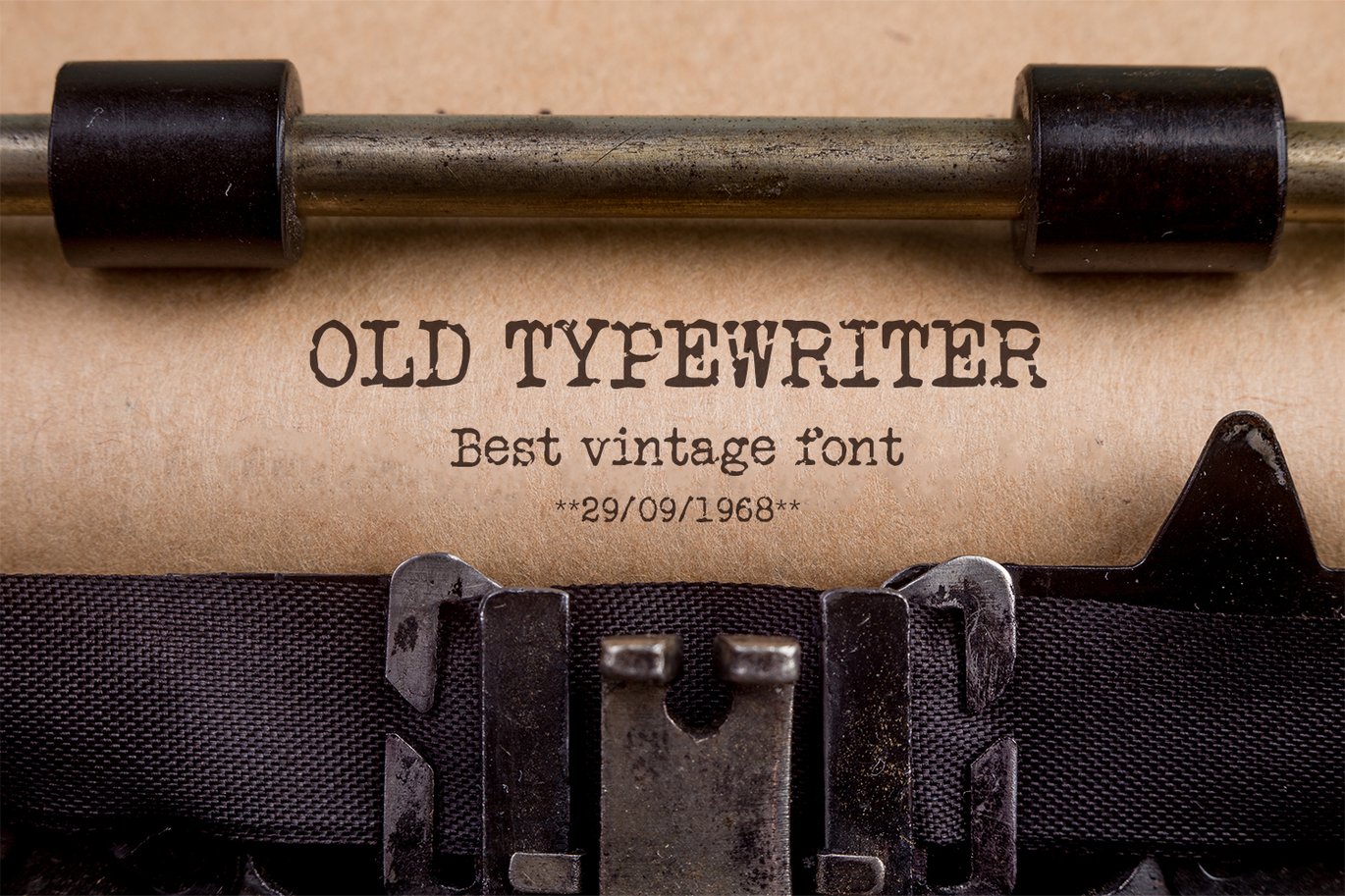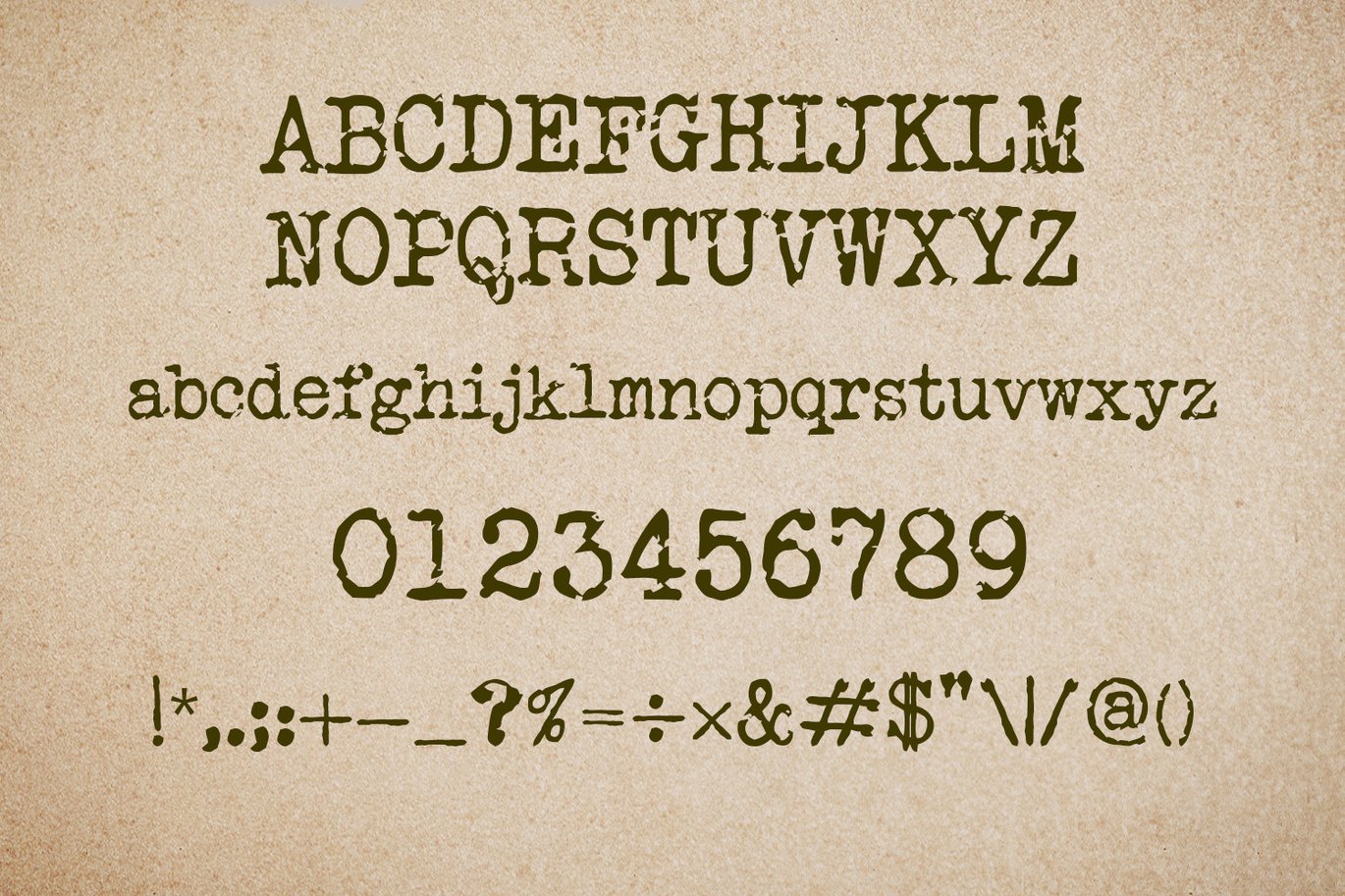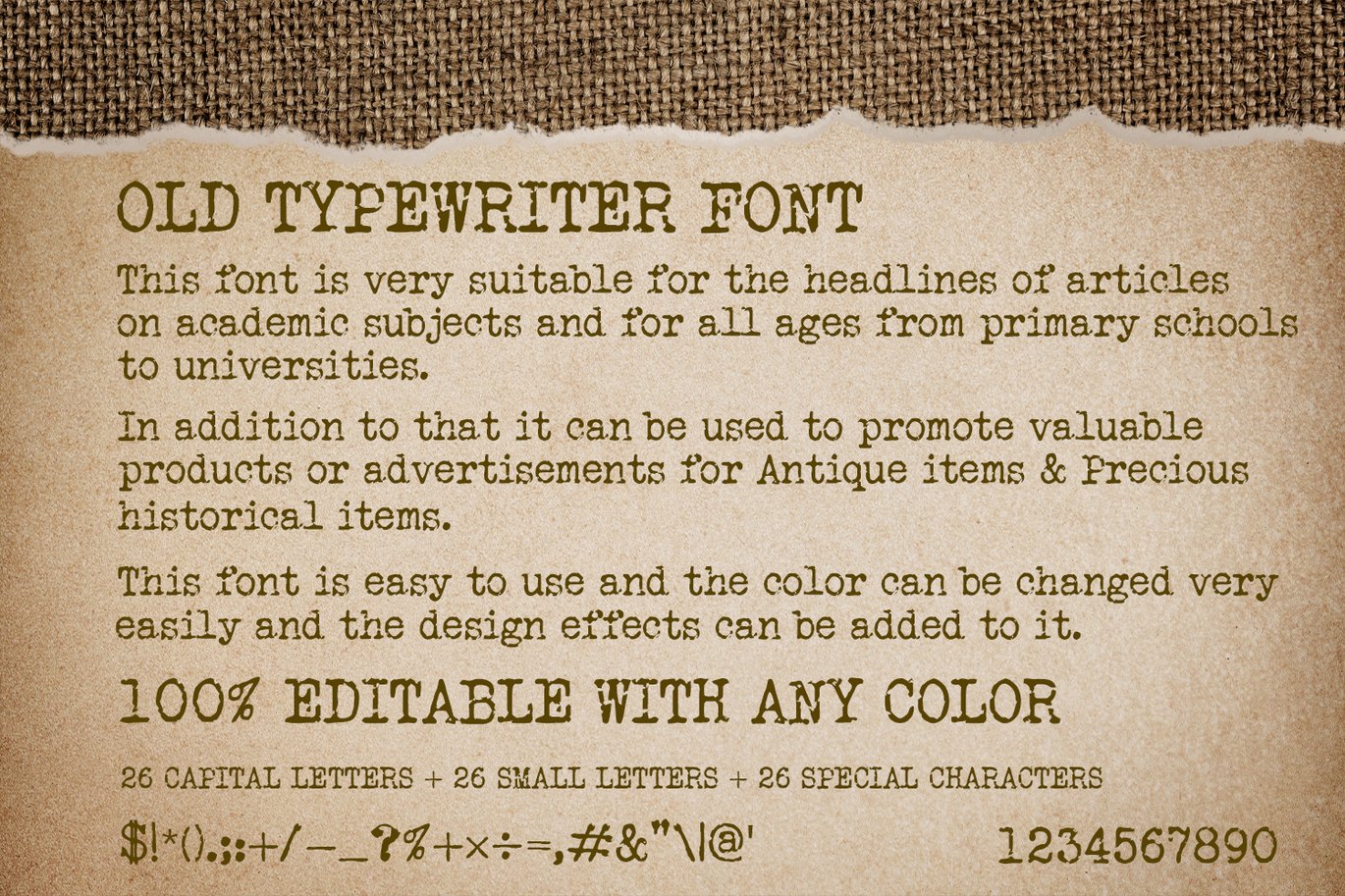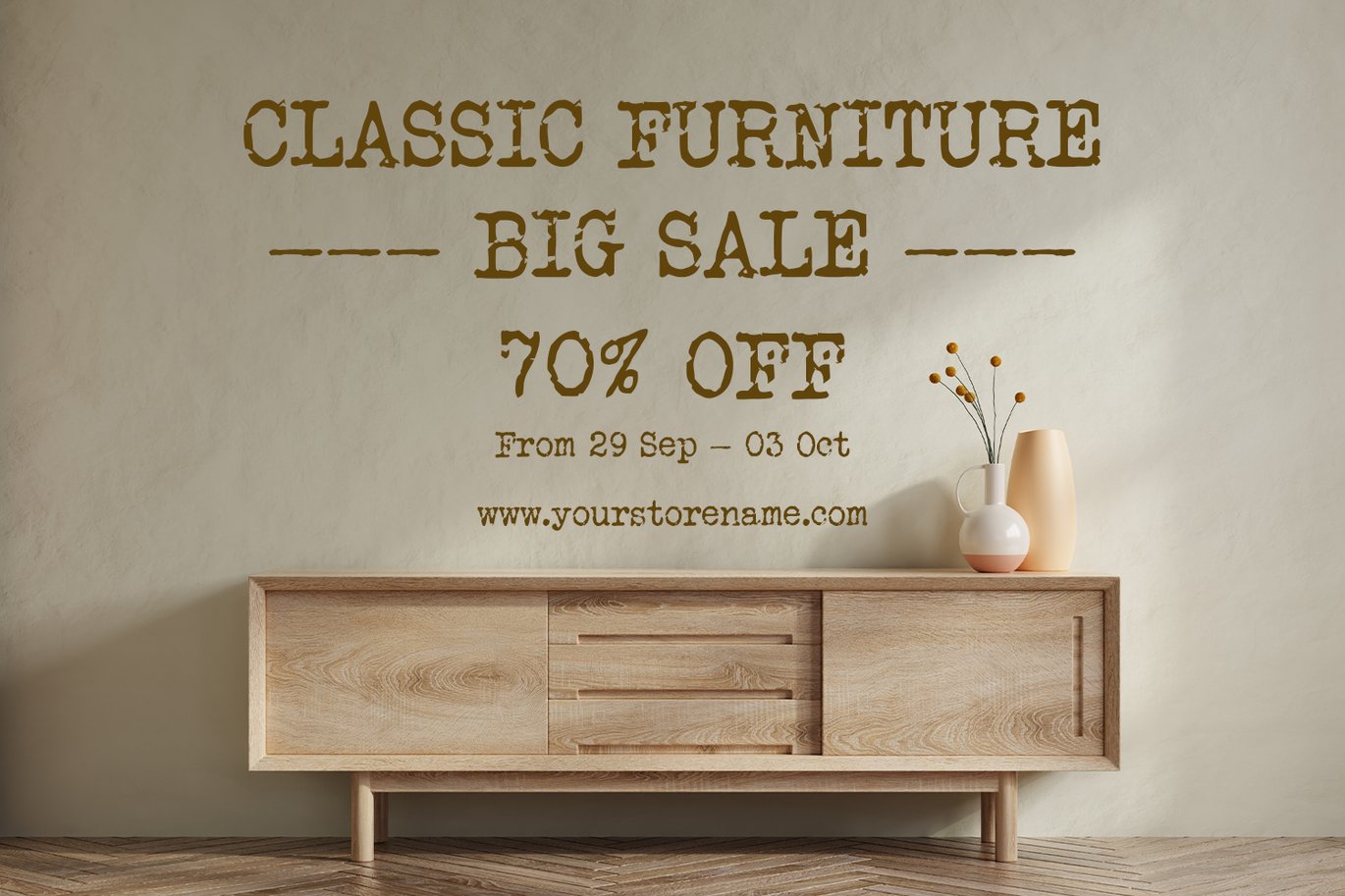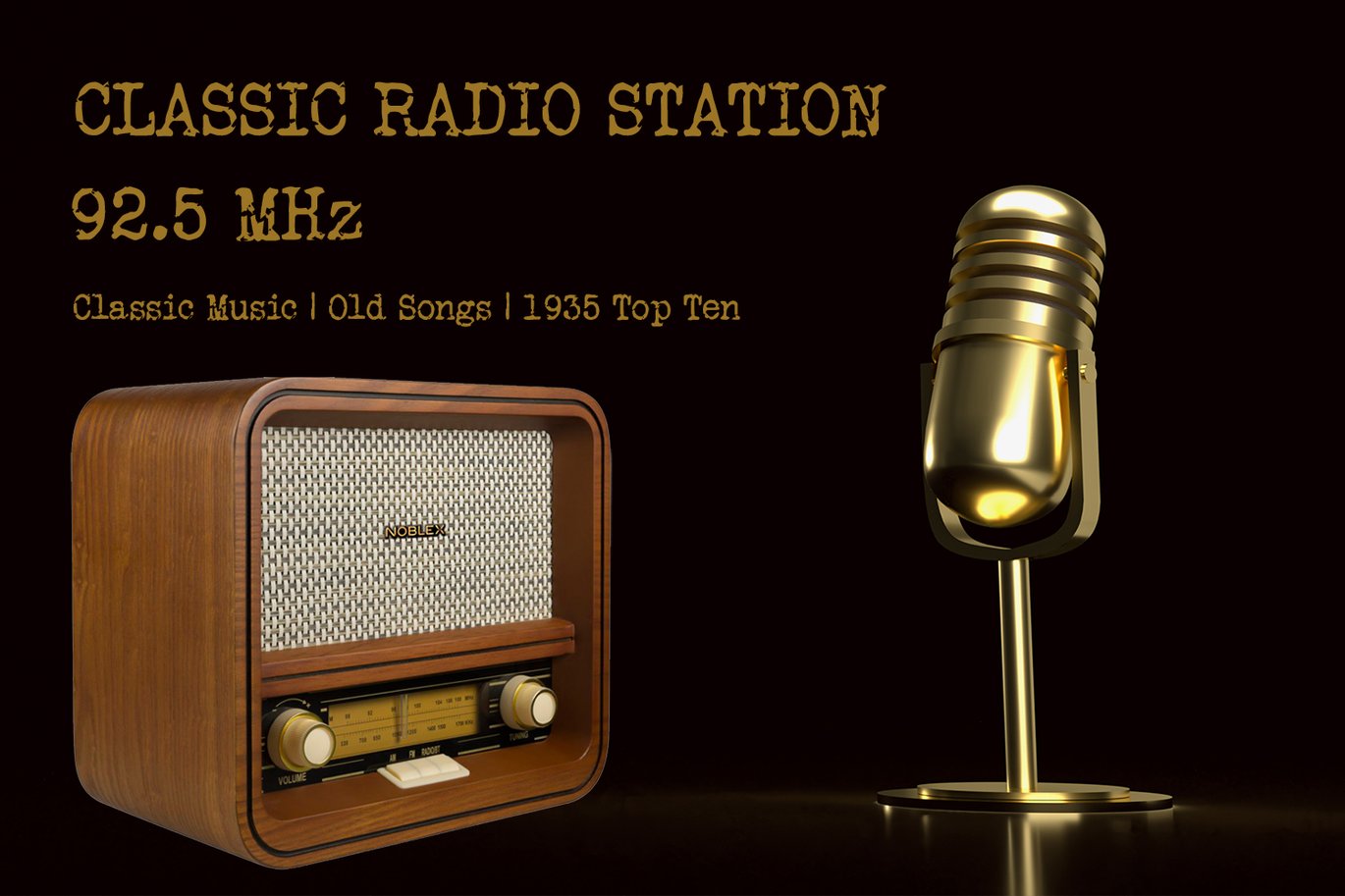
Old Typewriter Font
Give your designs a nostalgic, retro feel with this old typewriter font. Featuring a distressed, grunge texture, this typeface captures the essence of vintage typewriters, making it perfect for retro designs, historical documents, antique branding, and DIY print projects. With its classic serif style and rough, worn-out details, this font is ideal for posters, book covers, stationery, invitations, and logo designs. Whether you’re working on a steampunk aesthetic, newspaper-style layout, or aged paper effect, this font adds authenticity and charm. Compatible with Adobe Photoshop, Illustrator, Canva, and other design software. Download now and bring timeless character to your creative projects!
- Unique letterforms